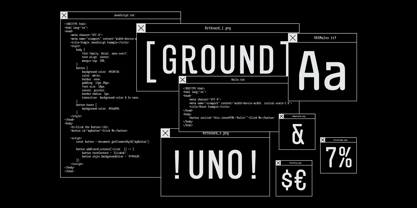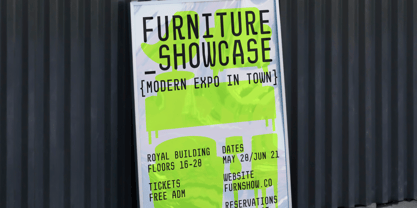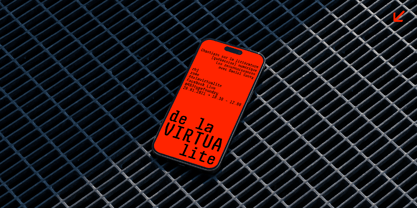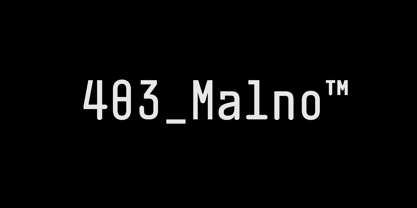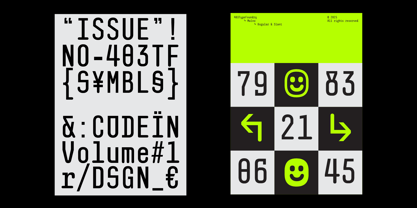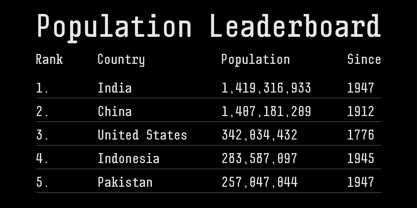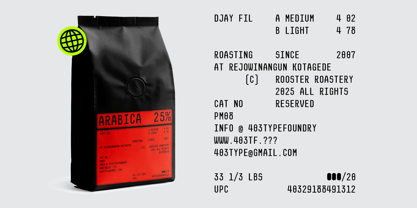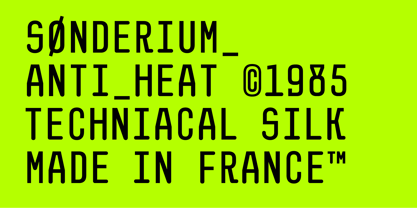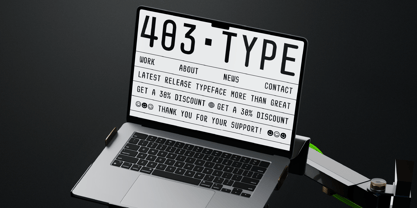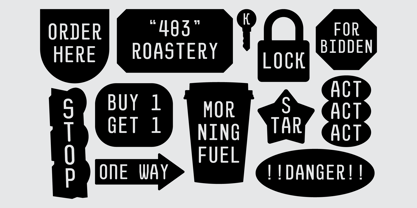
403 Malno
by 403TF
The 403 Malno Font Family was designed by Umar Al Farouq, Jodi El Ghazi, Febri Riansah and published by 403TF. 403 Malno contains 2 styles and family package options. More about this family
403 Malno Typeface is a painstakingly designed modular monospace font that strikes a balance between accuracy and adaptability. It is perfect for both technical and creative applications because of its simple, geometric structure, which is intended to be both useful and clear. With 494 glyphs and support for over 95 languages, 403 Malno provides outstanding usability across the globe. With two styles—Regular and Slanted—and one weight, the typeface offers versatility for a range of design requirements. It is ideal for both print and digital media